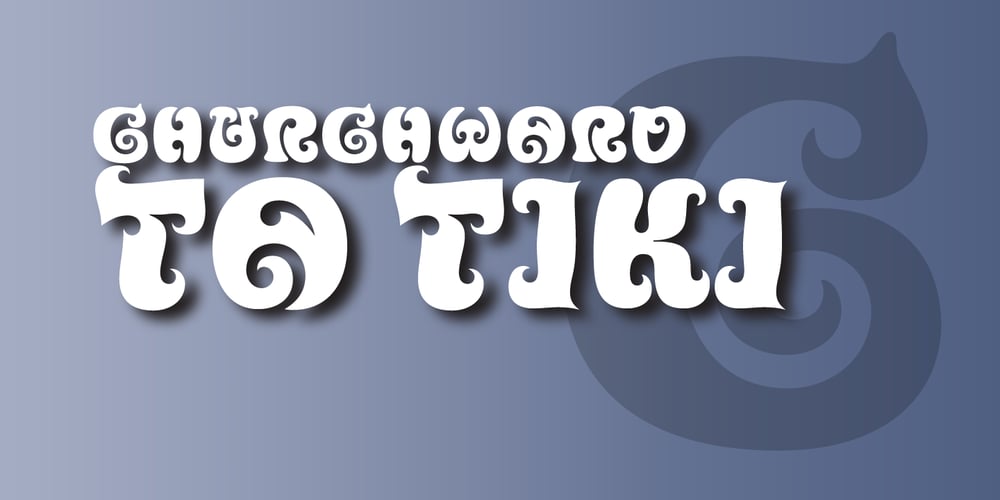
Churchward Ta Tiki
Churchward Ta Tiki font
Churchward Ta Tiki Font Family was designed by Joseph Churchward and published by BluHead Studio. Churchward Ta Tiki contains 1 styles and family package options. Churchward Ta Tiki is one of eight fonts by Joseph Churchward, inspired by Maori motifs. Great for headlines, greeting cards, or banners for your crazy events! Check out Churchward Maori too!